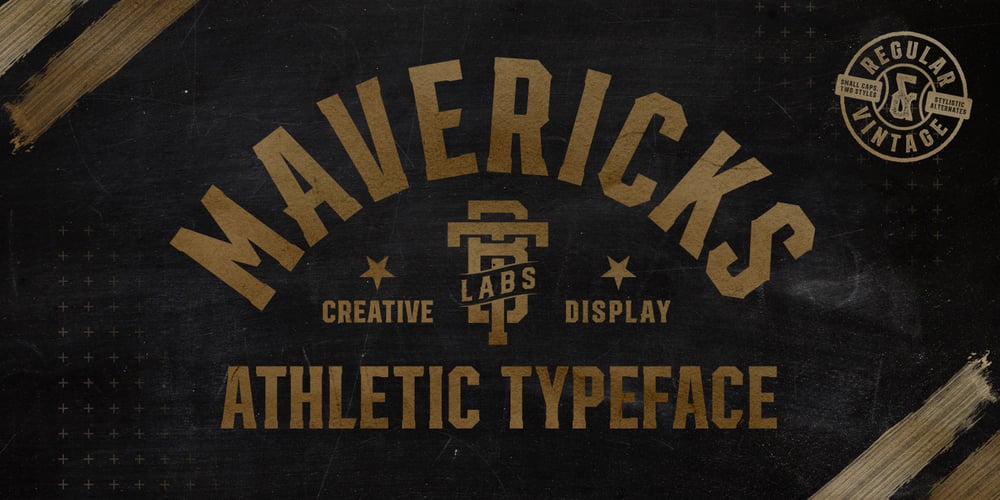
Mavericks Font Family was designed by Tobias Alexandersson and published by BoxTube Labs. Mavericks contains 2 styles and family package options. Maverick, noun, /ˈmæv.ɚ.ɪk/ a person who thinks and acts in an independent way, often behaving differently from the expected or usual way. Mavericks is a condensed small caps serif with focus on strength and power. It comes in two styles, Regular & Vintage, and features a fair amount of alternate characters to make each design a little more unique. It’s perfect for logotypes, sports branding, posters, apparel design, magazine headlines, labels and so much more.